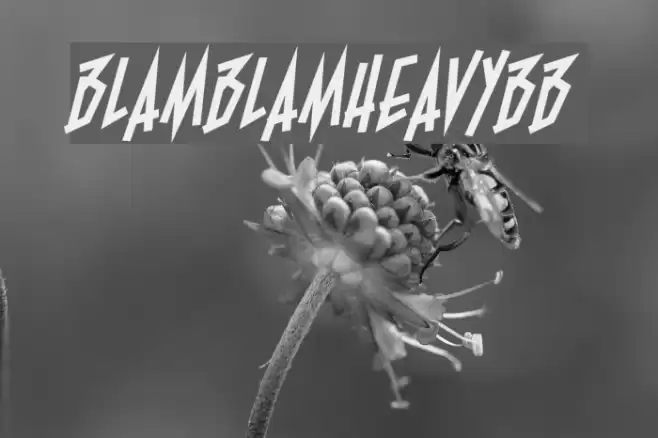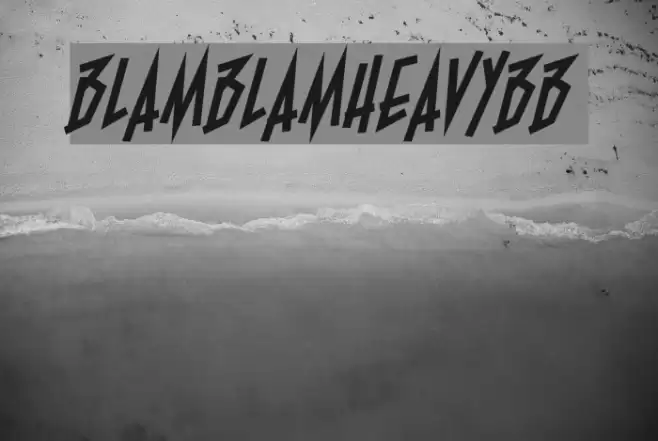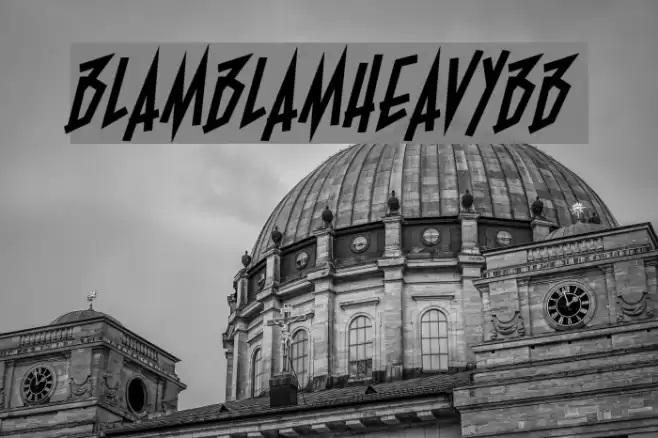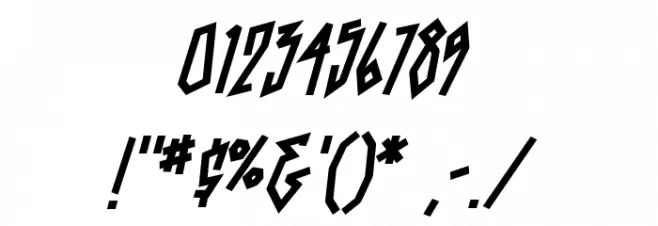
BlamBlamHeavyBB Font
BlamBlamHeavyBB Description
This font features a bold and dynamic design with sharp, angular edges that convey a sense of energy and movement. The characters are heavily stylized, with exaggerated points and a slightly condensed form, giving it a unique and aggressive appearance. The uppercase and lowercase letters maintain a consistent style, while the numerals and special characters complement the overall aesthetic. This font is ideal for projects that require a strong visual impact, such as posters, album covers, or branding for edgy and modern products.
A bold, angular font with sharp edges and a dynamic, energetic style from Uncategorized fonts.
- Proposed Projects: Ideal for posters, album covers, branding, and any project needing a strong visual impact.